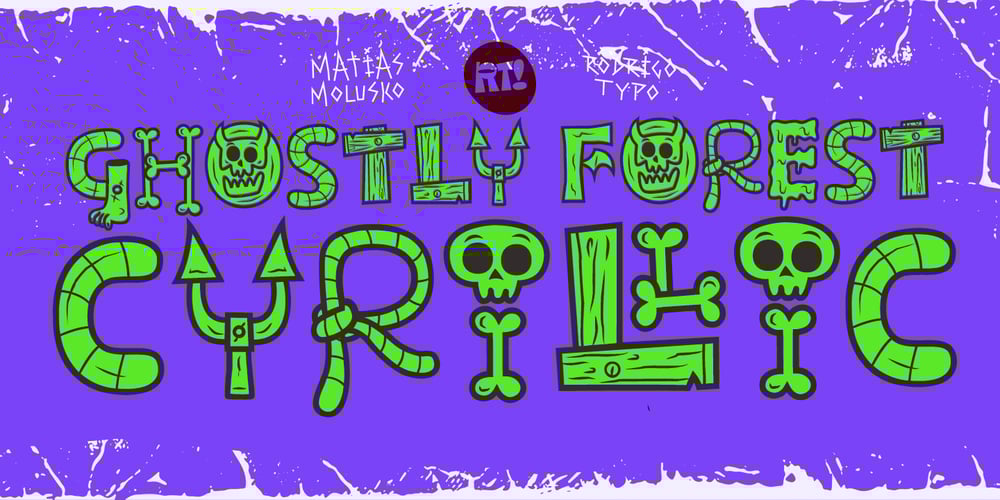
Ghostly Forest Cyrillic
Ghostly Forest Cyrillic font
Ghostly Forest Cyrillic Font Family was designed by Rodrigo Araya Salas and published by RodrigoTypo. Ghostly Forest Cyrillic contains 1 styles and family package options. It is an extension or variant of the “Ghostly Forest” typeface that has been adapted to include the Cyrillic alphabet and also incorporates many alternatives, such as Swash glyphs, for a more fun design suitable for casual or Halloween-related concepts.